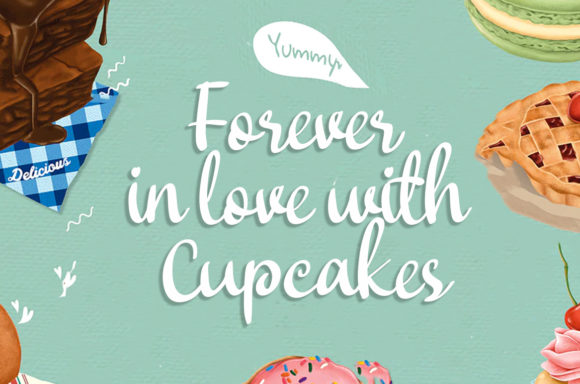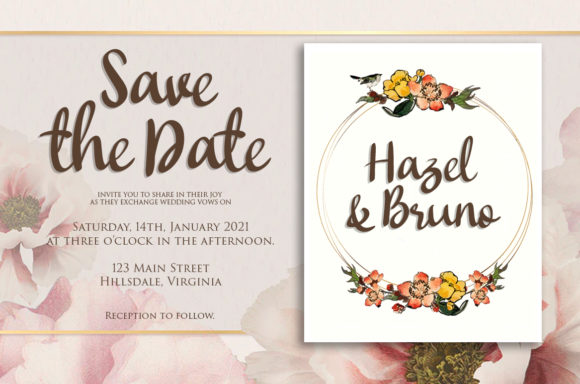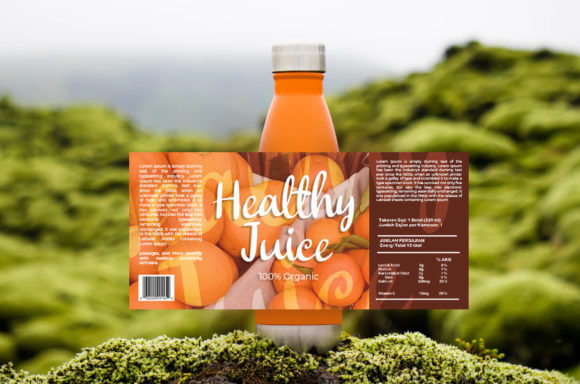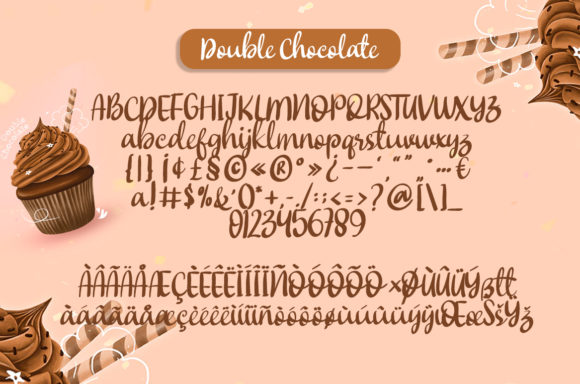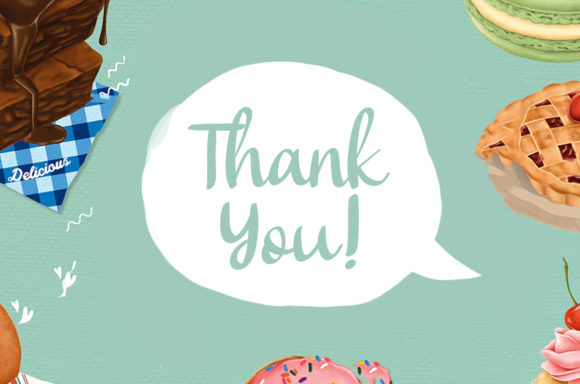
Introducing Double Chocolate Font: The Sweetest Script for Your Crafts
Are you a designer or crafter looking for a unique and charming font to add a personal touch to your projects? Look no further than Double Chocolate Font! This quirky and sweet script is sure to capture the hearts of anyone who lays eyes on it. With its romantic spark and playful vibe, Double Chocolate Font is the perfect addition to any craft, from handmade cards and invitations to DIY jewelry and home decor.
The Story Behind Double Chocolate Font
Double Chocolate Font is more than just a pretty face – it’s a carefully crafted script that’s designed to evoke the warmth and coziness of a handwritten letter. Its creator, [font designer], drew inspiration from classic scripts and infused them with a modern twist, resulting in a font that’s both nostalgic and fresh. Whether you’re a professional designer or a hobbyist crafter, Double Chocolate Font is sure to become your go-to script for adding that special something to your projects.
What Makes Double Chocolate Font So Special?
So, what sets Double Chocolate Font apart from other scripts out there? Here are just a few of its standout features:
- Quirky and charming: Double Chocolate Font has a playful, whimsical vibe that’s sure to add a smile to anyone’s face. Its irregularities and imperfections give it a handmade feel that’s perfect for crafts and DIY projects.
- Romantic spark: With its flowing curves and elegant lines, Double Chocolate Font is the perfect choice for projects that require a touch of romance. Whether you’re creating wedding invitations, anniversary cards, or love letters, this font is sure to set the tone.
- Versatile: Double Chocolate Font is more than just a one-trick pony – it’s a versatile script that can be used for a wide range of projects, from formal events to casual crafts.
Using Double Chocolate Font in Your Crafts
So, how can you use Double Chocolate Font in your crafts? The possibilities are endless! Here are a few ideas to get you started:
- Handmade cards and invitations: Add a personal touch to your correspondence with Double Chocolate Font. Use it to create beautiful wedding invitations, birthday cards, or thank-you notes.
- DIY jewelry and accessories: Double Chocolate Font is the perfect choice for creating custom jewelry, such as pendants, earrings, or charms. You can also use it to add a personal message to your accessories, like tote bags or phone cases.
- Home decor: Use Double Chocolate Font to add a touch of personality to your home decor. Create custom wall art, decorate your furniture, or make personalized gifts for friends and family.
Tips for Getting the Most Out of Double Chocolate Font
To make the most of Double Chocolate Font, here are a few tips to keep in mind:
- Experiment with different sizes and colors: Double Chocolate Font looks great in a variety of sizes and colors. Don’t be afraid to experiment and find the combination that works best for your project.
- Pair it with other fonts: Double Chocolate Font pairs well with a range of other fonts, from bold and modern to elegant and sophisticated. Try pairing it with a sans-serif font for a fun and playful look.
- Use it sparingly: While Double Chocolate Font is beautiful on its own, it can also be used sparingly to add a touch of elegance to your projects. Try using it as a headline or accent font to add visual interest.
Double Chocolate Font is a sweet and charming script that’s sure to capture the hearts of designers and crafters alike. With its quirky and romantic vibe, it’s the perfect addition to any craft or DIY project. Whether you’re creating handmade cards, DIY jewelry, or home decor, Double Chocolate Font is sure to add that special something that sets your project apart. So why not give it a try and see what sweet creations you can come up with?